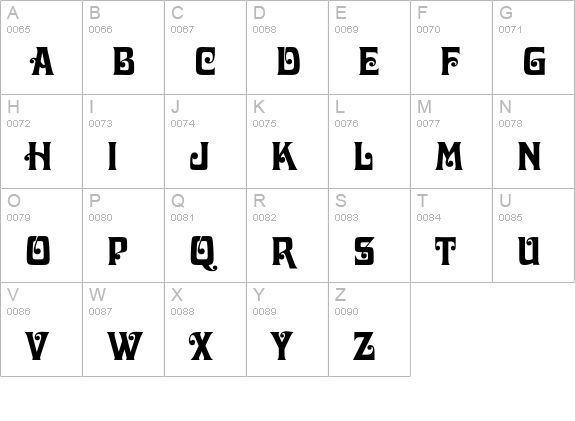
Davida Bold Font Details
Davida Bold is a strong, high-contrast variant in the Davida typeface family \xE2\x80\x94 well suited to headlines, attention-grabbing titles, and strong calls-to-action.
Davida Bold is a striking and elegant font that exudes confidence and sophistication. Its bold and distinctive letterforms make a powerful statement, perfect for headlines, titles, and other attention-grabbing designs. The strong, clean lines of this font create a sense of modernity and professionalism, while still maintaining a touch of classic charm. What makes Davida Bold even more appealing is that it is available for free download at FontsMarket.com. This means that you can easily access this high-quality font without any cost, making it a valuable addition to your font collection. Whether you are a designer looking to make a bold impact with your typography or simply someone in need of a stylish and versatile font, Davida Bold is sure to meet your needs. Download it today and elevate your designs with its bold and impactful presence.